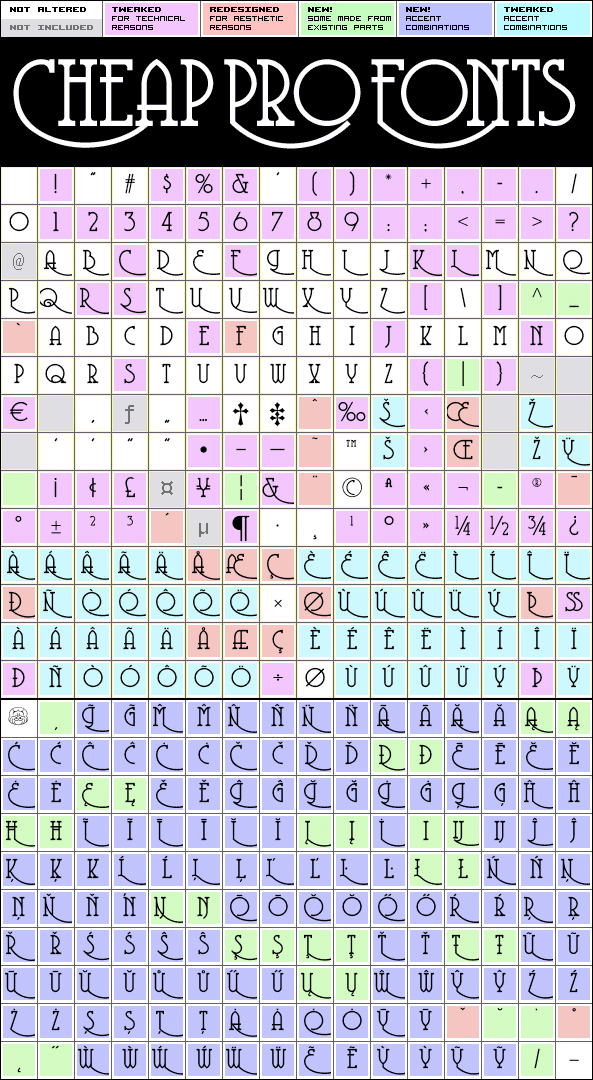
Coventry Garden NF Pro
Coventry Garden NF Pro by Nick Curtis
Designer:
Nick Curtis
Description:
I have improved and added diacritics to this elegant alphabet, and generally cleaned it up to a professional standard. It is well suited to logos, menus, invitations and other things wanting a touch of elegance ;)
Nick Curtis says: "I came across this particular treatment for swash caps in an old book on letterhead design. The original had been handlettered, but I though it might be convenient to have a ready-made font to accomplish the same effect, and here it is. As an extra added feature, the “§” sign is an ampersand with a long tail."
Coventry Garden NF Pro is a professionally reworked font that contains an extended character set for setting text in 65 languages requiring more than the basic A-Z!